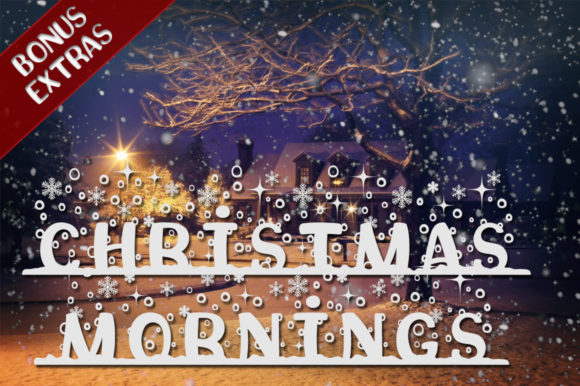
Embrace the magic of the season with Christmas Mornings Font, an enchanting holiday display font that will transform your creative projects into a winter wonderland. Capture the essence of joy, love, and festivity with every letter you type, adding a touch of Christmas cheer to your designs.
Immerse yourself in the beauty of Christmas Mornings Font, a display font designed to ignite your creativity. Whether you're a seasoned designer or just starting out, this font will elevate your work to new heights. Its elegant curves and playful swashes will add a touch of whimsy to your designs, making them stand out from the crowd.
With Christmas Mornings Font, you'll have the power to create stunning headers, eye-catching logos, and captivating social media graphics that will leave a lasting impression. Its versatility extends to craft products as well, allowing you to add a personal touch to your handmade creations.
Anastasia Feya, the creative mind behind Christmas Mornings Font, has poured her heart and soul into this font, ensuring that every letter is a work of art. The result is a font that exudes warmth, nostalgia, and the magic of the holiday season.
Experience the joy of crafting with Christmas Mornings Font. Optimized for Cricut and Silhouette Studio, this font makes it easy to create intricate designs with minimal effort. The reduced number of points in each letter ensures faster cutting times, allowing you to bring your creative visions to life in no time.
As a special bonus, Christmas Mornings Font comes with Christmas Extras, a font that lets you create a snowy background to complement any font you choose. Add a touch of winter magic to your designs with snowflakes, snowmen, and other festive elements.